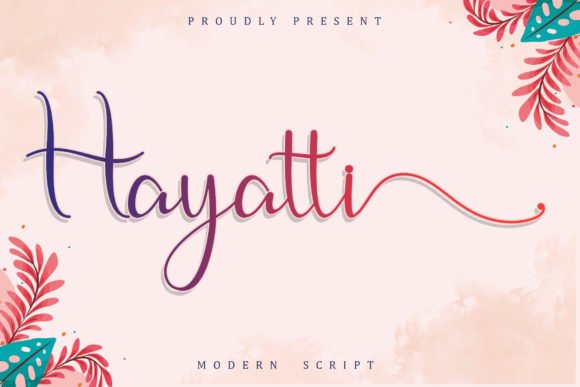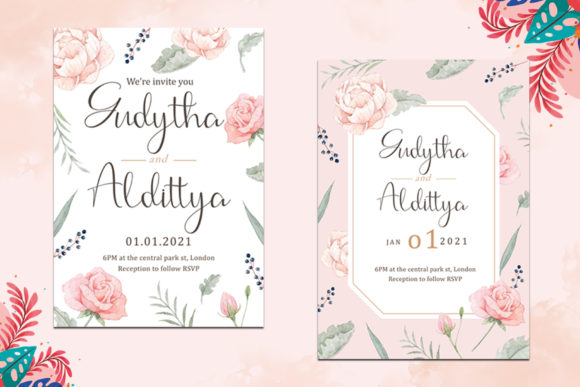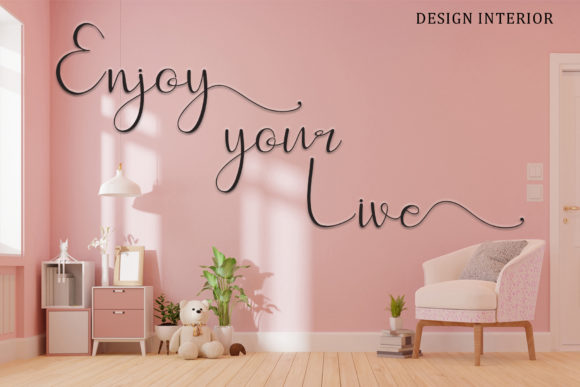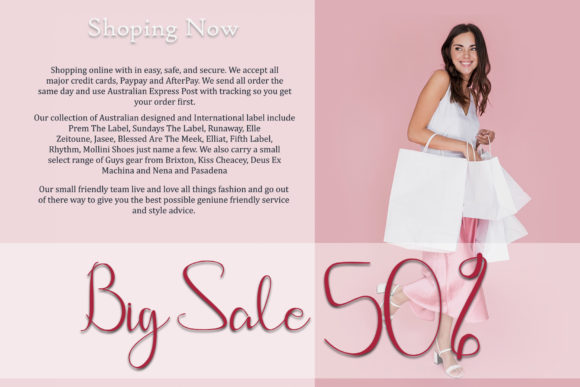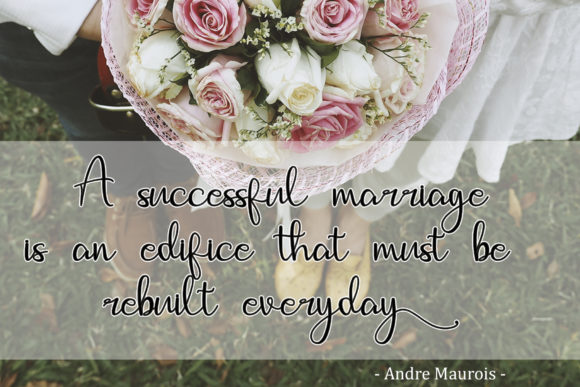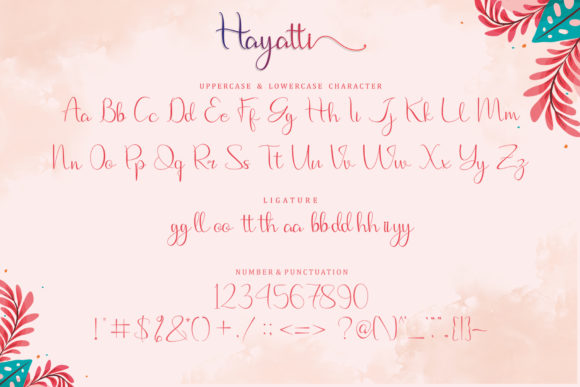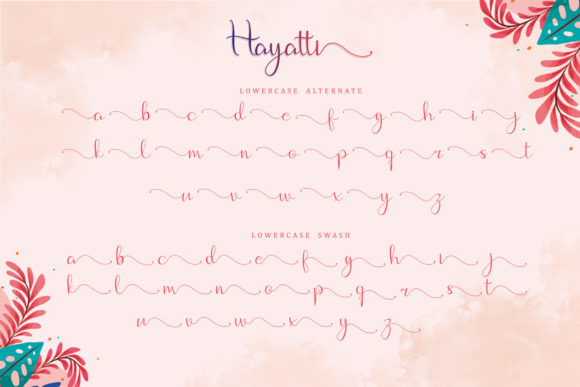
The Joy of Handwritten Perfection: Discovering the Hayatti Font
As a designer, have you ever found yourself stuck in a creative rut, yearning for that perfect font to elevate your next project? I know I have. There’s something special about a beautifully crafted handwritten font that can instantly transport your audience to a world of elegance and sophistication. That’s where the Hayatti Font comes in – a delicate and refined masterpiece that’s sure to capture the hearts of designers and typography enthusiasts alike.
With its distinct and well-rounded letters, the Hayatti Font is a versatile tool that can be used to create a wide range of designs, from whimsical invitations to stunning branding materials. Its PUA encoding also makes it incredibly easy to access all of the glyphs and swashes, allowing you to unlock the full potential of this beautiful font.
Hayatti Font Key Features
- Font Family: Hayatti, with multiple font styles including Regular, Italic, Bold, and Bold Italic.
- Unique Characteristics: Hayatti Font features a unique blend of traditional and modern elements, with intricate details and subtle flourishes that add a touch of elegance to any design.
Honest Review of Hayatti Font
Overall, I think Hayatti Font is a solid choice for designers looking for a unique and elegant script font. ✨ The fluidity of the letters and the subtle connections between strokes create a sense of continuity that makes the font feel natural and effortless to read. ✨ The font’s high contrast between thick and thin lines adds depth and visual interest, making it perfect for headings and titles.
However, there are a few limitations to consider. ⚠️ The font’s limited character set and lack of language support may be a concern for designers who need to typeset text in multiple languages. ⚠️ Additionally, the font’s script nature can make it difficult to read in certain contexts, such as in small font sizes or in environments with low contrast.
What to Expect
- Unique and elegant script font
- Fluid and natural letter connections
- High contrast between thick and thin lines
- Limited character set and language support
- Difficult to read in small font sizes or low contrast environments
Tips for Getting the Most Out of Hayatti Font
To get the most out of Hayatti Font, try the following:
- Combine Hayatti Font with other fonts to create a unique and stylish design.
- Use Hayatti Font for headings and titles to add a touch of elegance.
Hayatti Font is ideal for:
- Luxury and high-end product design.